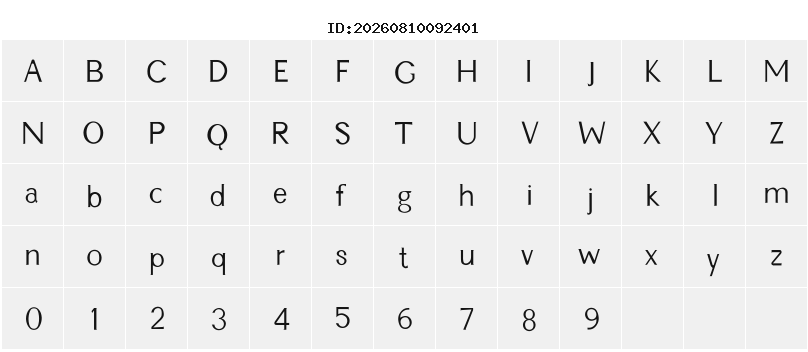
PCKimberly Preview
• Font Name: PCKimberly
• Full Font Name: PCKimberly
• PostScript Name: PCKimberly
About PCKimberly.ttf
PCKimberly.ttf is a modern, elegant sans-serif font designed for ultimate readability and visual harmony. Perfect for branding, headlines, web design, and print materials.